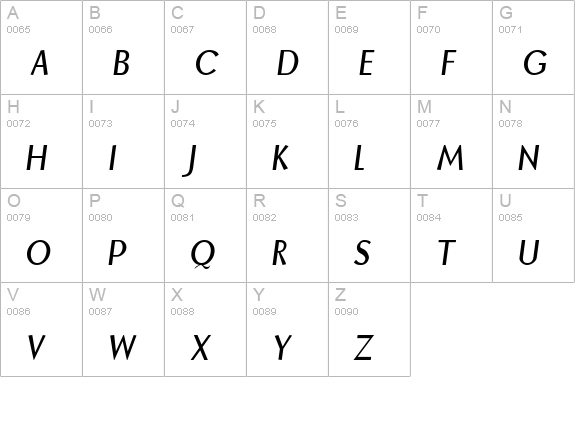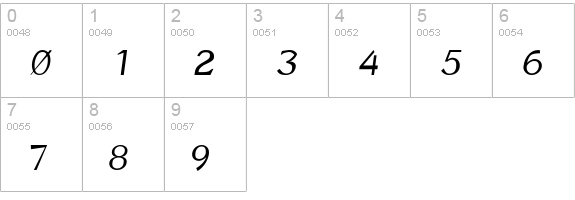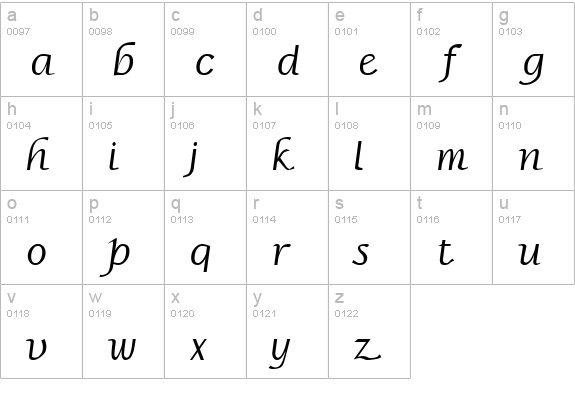
Borzoi BoldItalic font is a stunning display typeface that exudes elegance and sophistication. Its sleek lines and graceful curves make it perfect for adding a touch of luxury to any design project. The bold and italic characteristics of this font add a sense of strength and confidence, making it ideal for headlines, titles, and other prominent text. What's even better is that Borzoi BoldItalic font is available for free download at FontsMarket.com. This means you can easily access this beautiful font and use it in your projects without any cost. Don't miss out on the opportunity to enhance your design with the timeless beauty of Borzoi BoldItalic font. Download it now and elevate your creations to the next level!